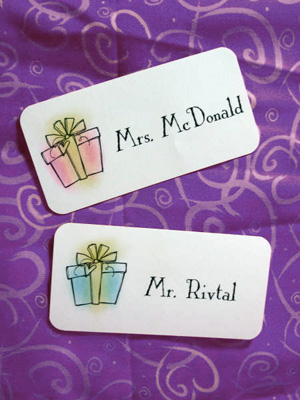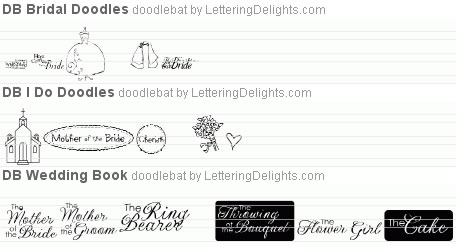
1. June Weddings
June is the most popular month of the year to get married. You may already be invited to a wedding this month! Would you agree that all weddings are the same: two people who come together in a legal union? But at the same time weddings are all so very, very different. Each is unique reflection of the couple; their personalities, their relationship and their love. Take my most recent two wedding experiences as examples….
At the first, I was a guest of the groom. The formal wedding mass had a large group of guests, and was followed by a cocktail party and reception with dinner and dancing into the night. I was a friend of the bride at the second wedding. Her wedding was a simple religious ceremony attended by a small number of close family and friends. An informal and beautiful garden reception followed.
Both weddings were a great amount of fun, full of joy, laughter, family and friends, in beautiful settings with wonderful food. Both events marked the beginning of new life chapters and created wonderful memories for everyone. And both were perfect for the individual couples. Both were the same but both were very different.
No two weddings are the same and no two couples are the same but it’s easy to find the perfect designs for handmade wedding cards, gifts and scrapbooks at Lettering Delights. This month we’re adding even more unique wedding theme designs for creative lettering, traditional scrapbooking and digital scrapbooking. Find the perfect one for the couple you want to celebrate.
2. Creative Corner
Last month I was in charge of the annual Teacher Appreciation Night event at my church. Each of the youth (ages 12-18) invite a teacher/coach/leader for a dinner and program. This year’s theme was centered around the quote “Feeling gratitude and not expressing it is like wrapping a present and not giving it”. Consequently, a wrapped gift was the central image and where did I turn but to Lettering Delights to find a design that would fulfill our needs. With DB Bridal Shower and the font LD Hallmark, I had the perfect elements to create our invitations, programs and nametags.
I sized the DB Bridal Shower gift image very large - between 150 and 175 pt type depending on the piece. For the invitations, I printed sheets with just gifts (12 to a page) and each was chalked, cut out, and then mounted to front of the invitation with foam tape to give it some added dimension. The invitation front and inside use the font LD Hallmark. The labels were created in MicrosoftWord using the preset format for full sheets of Avery 4x2 labels.
This is just one example of how I used a couple of simple Lettering Delights products to create basic elements for a great (and unique) event.
4. I Thee Wed Bundle
I Thee Wed Bundle
When two people come together and pledge their love to one another the I Thee Wed Bundle will help to make the event
memories last forever in beautiful fashion. Sweet and simple, Soulmate is perfect for young love and simple ceremonies. Man and Wife is set apart by deep rich color and bold designs. The exquisite style of formal affairs is perfectly captured in Golden Elegance. Wedding images from yesteryear in soft warm tones are delightfully presented in Vows. Each design’s unique style is perfectly captured in an alphabet and Journaling Delight Clip Art set, each with borders, images and words perfect for this special occasion. Tie them all together with a beautiful new script font LD Elegance, the perfect compliment for each design.
5. I Do DoodleBat Bundle
I do and you will love the new I Do DoodleBat Bundle. DB Bridal Doodles has everything you need to help her get ready on her special day. Everyone in the bridal party has a place in DB I Do Doodles and DB Wedding Book includes in all the people and events associated with weddings, in beautiful script designs.